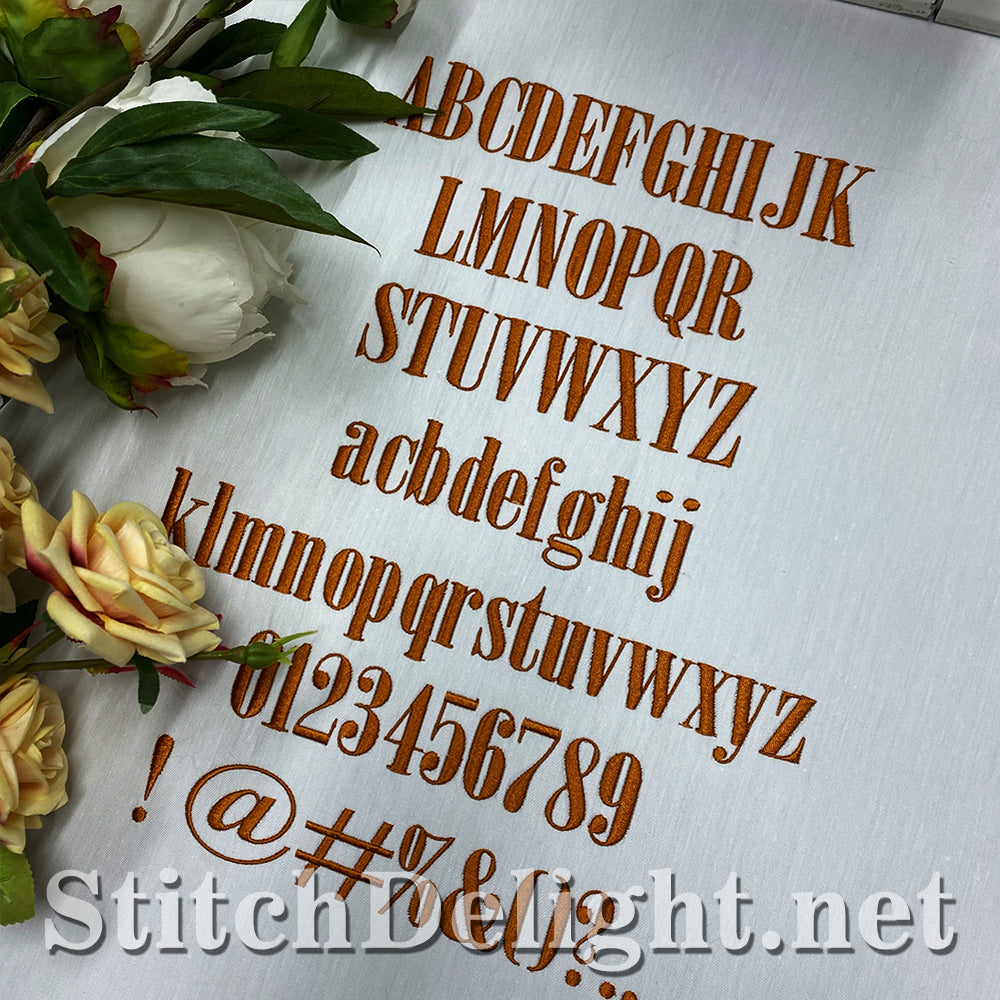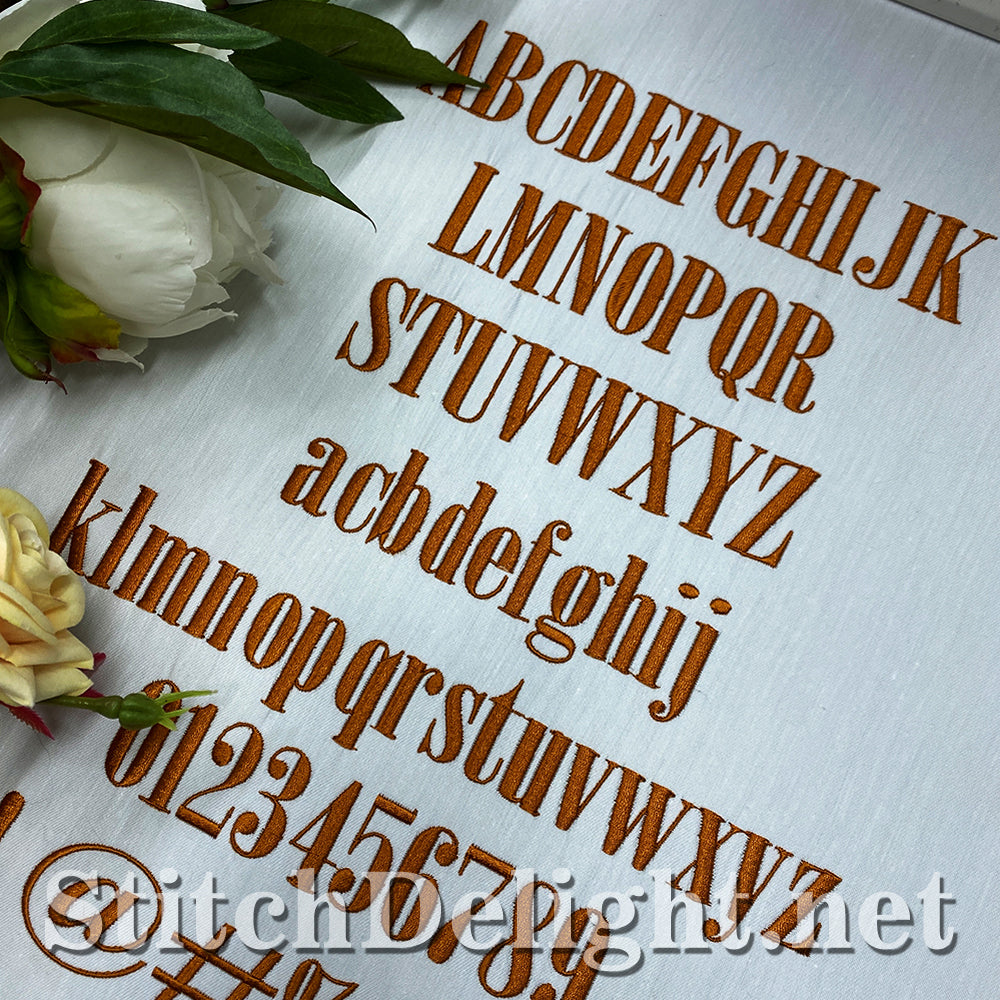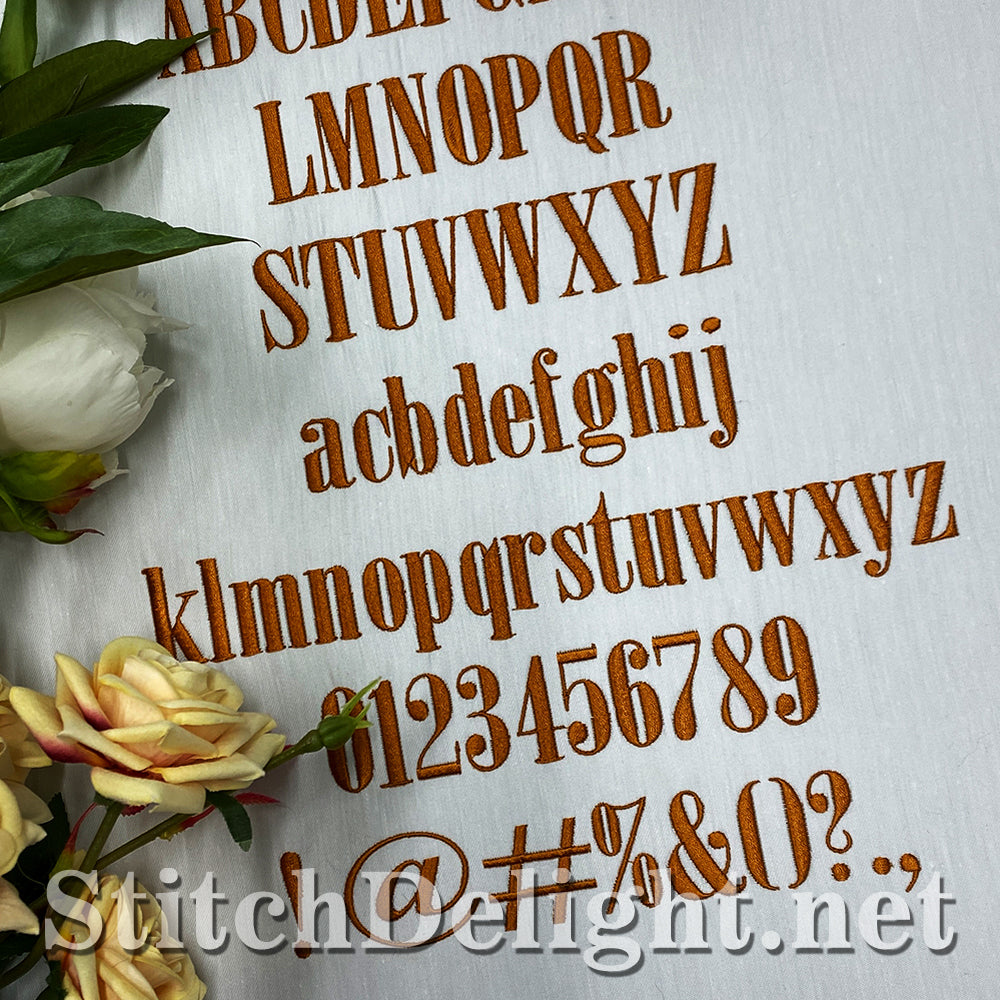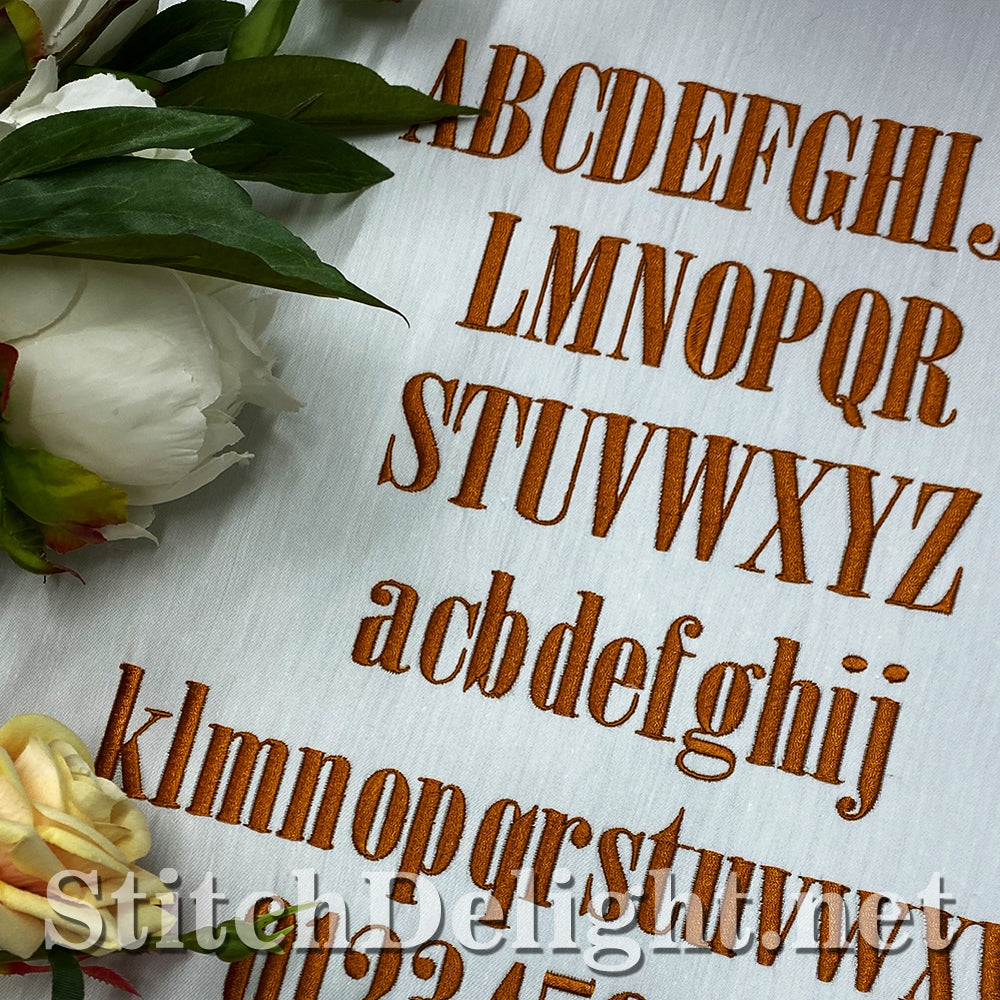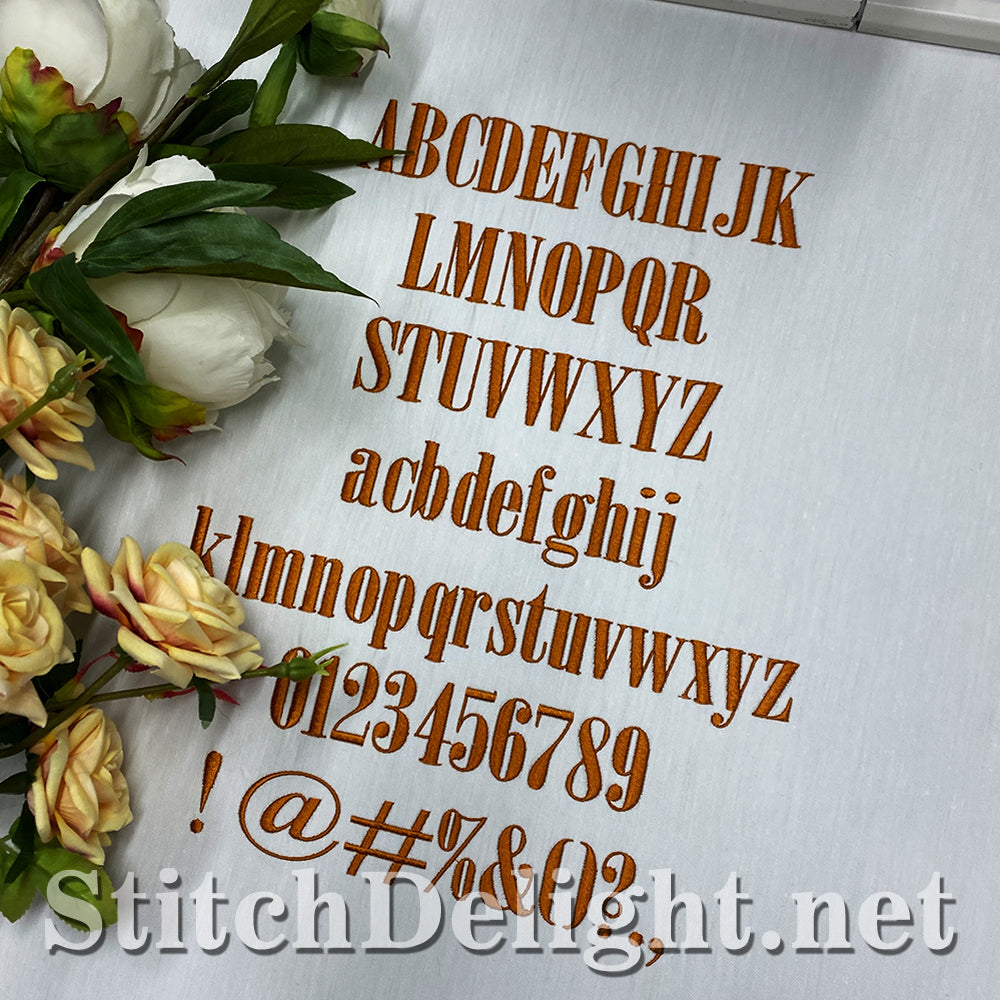
This is the matching font for SDS5462 (April's Collectors Font)
With an average height of just 1.2" this font is perfect for smaller wording and quotes.